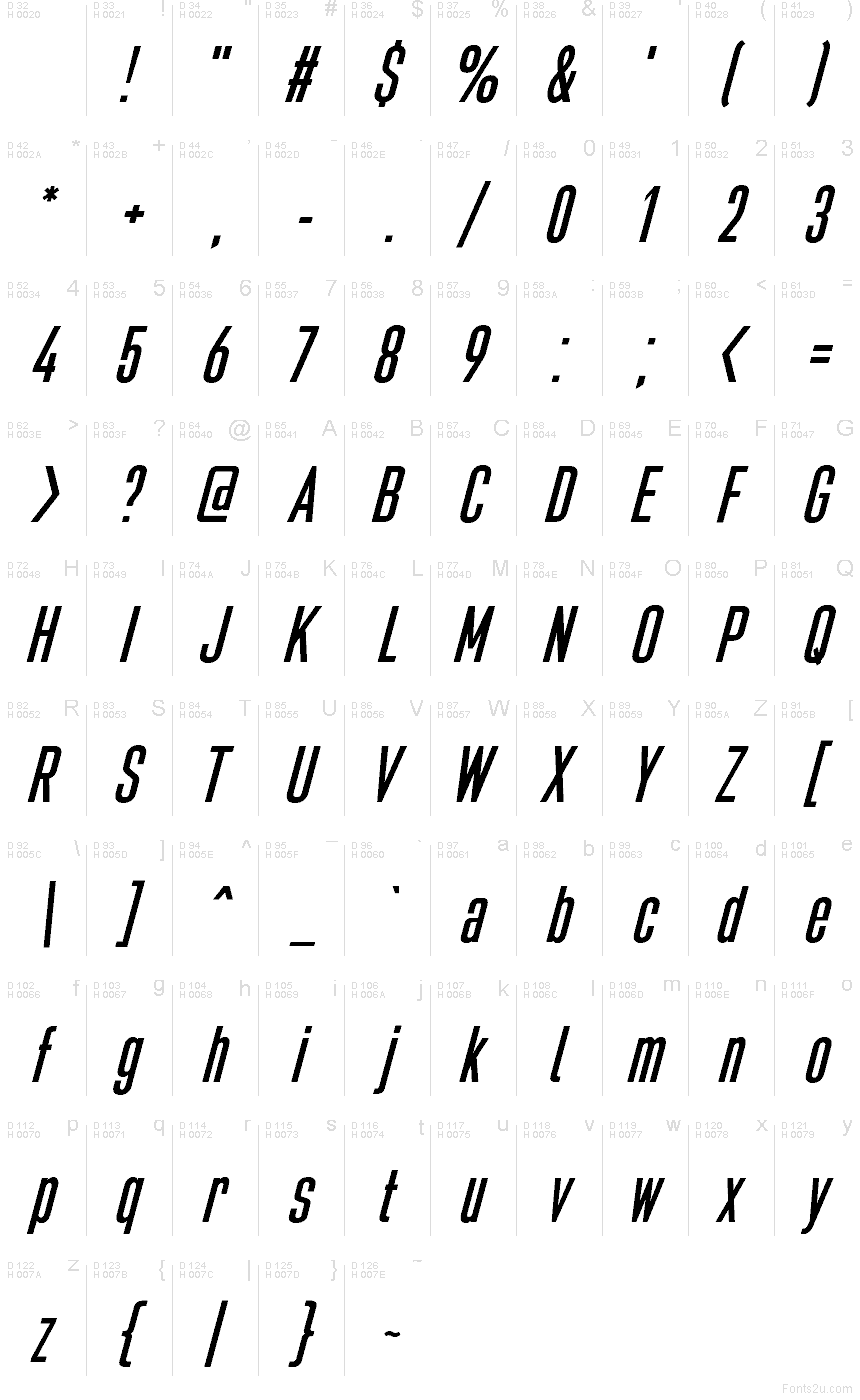
Bilgen Demo Extra Bold Right
Bilgen Extra Bold Right font by Bykineks is a free sans serif typeface with a bold, forward-leaning stance that feels like it’s in motion even on a static page. Its condensed proportions, thick strokes, and rightward slant create a strong sense of speed and urgency, while the smooth curves keep it polished rather than harsh. The result is a striking wordmark-style texture that commands attention in just a few characters.
Using Bilgen Extra Bold Right, you can punch up sports branding, poster headlines, music covers, energetic social media graphics, bold logos, and magazine mastheads. This free font shines at larger sizes, where its compact width saves space without sacrificing impact; pair it with a clean, neutral sans from the Bilgen family for supporting text to keep layouts cohesive and dynamic.